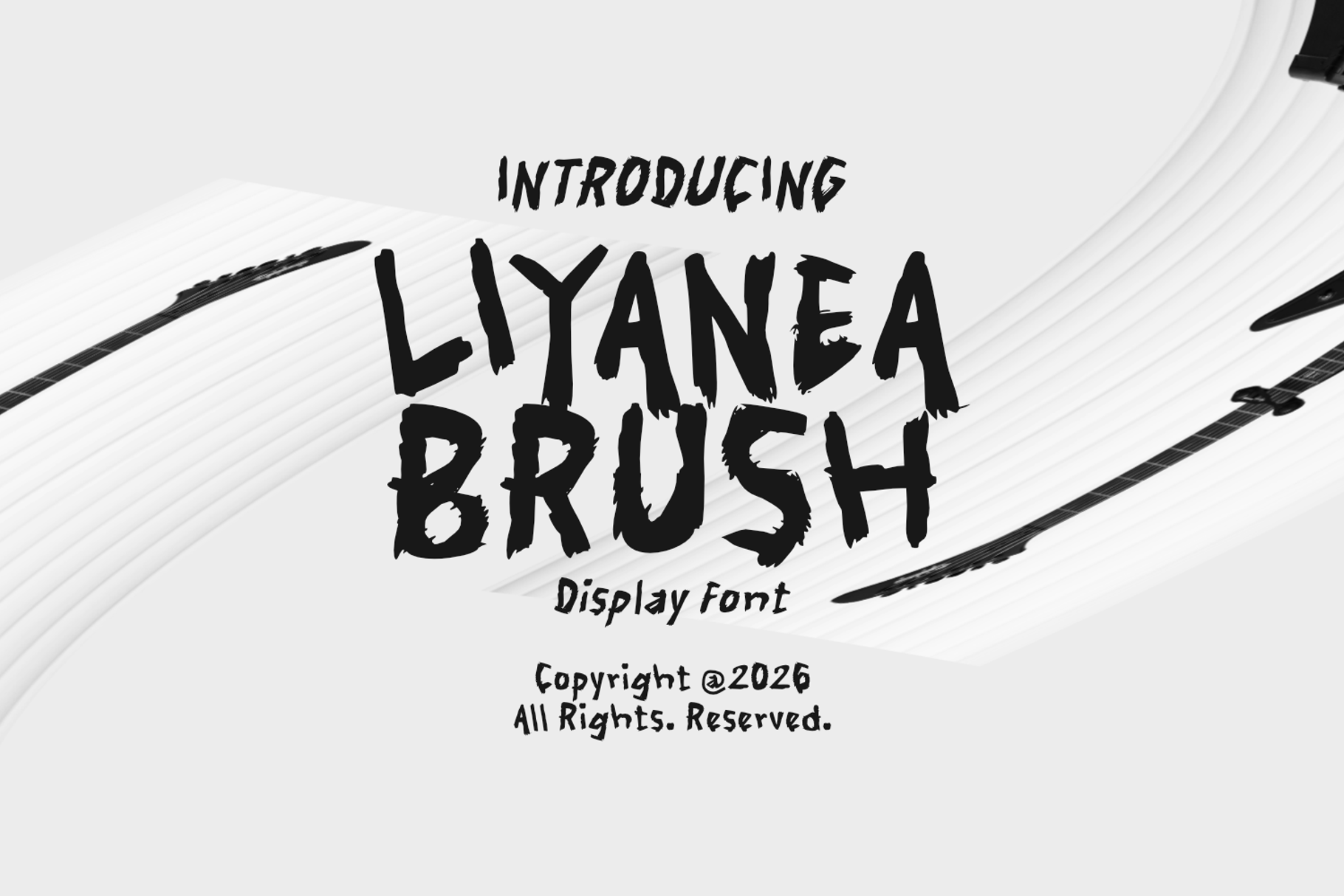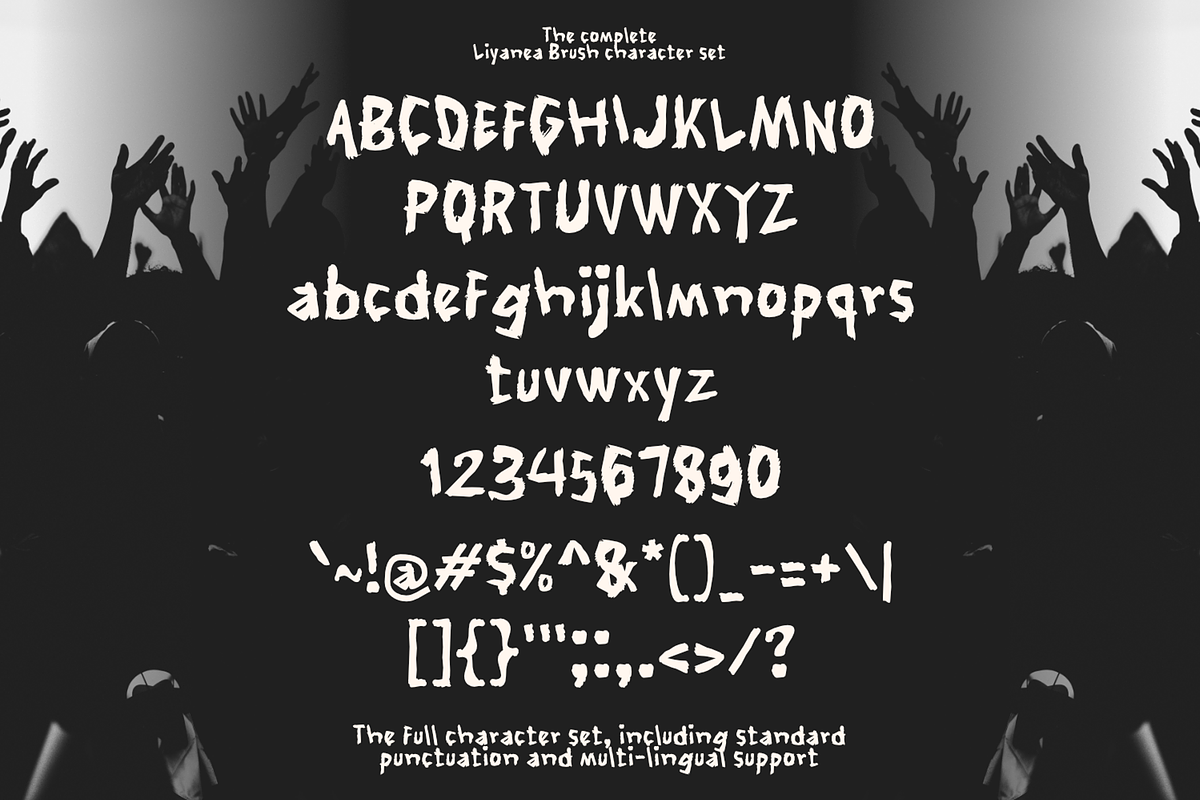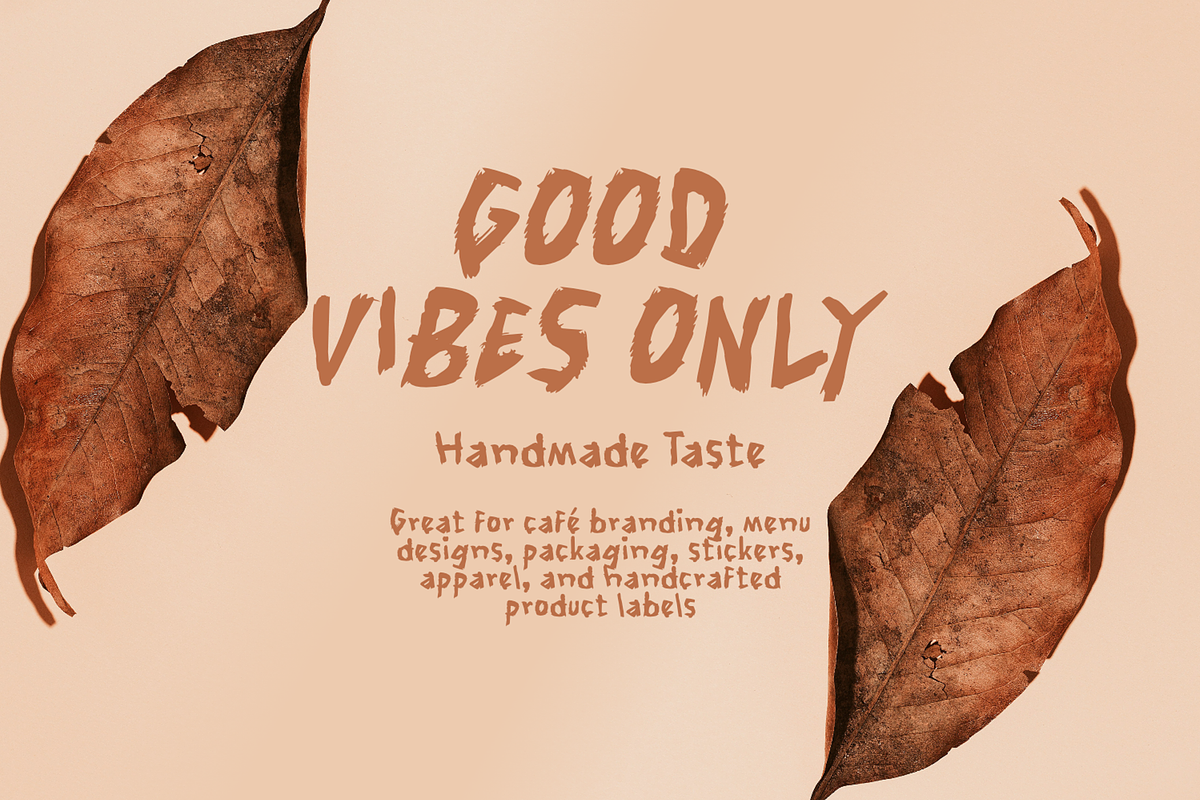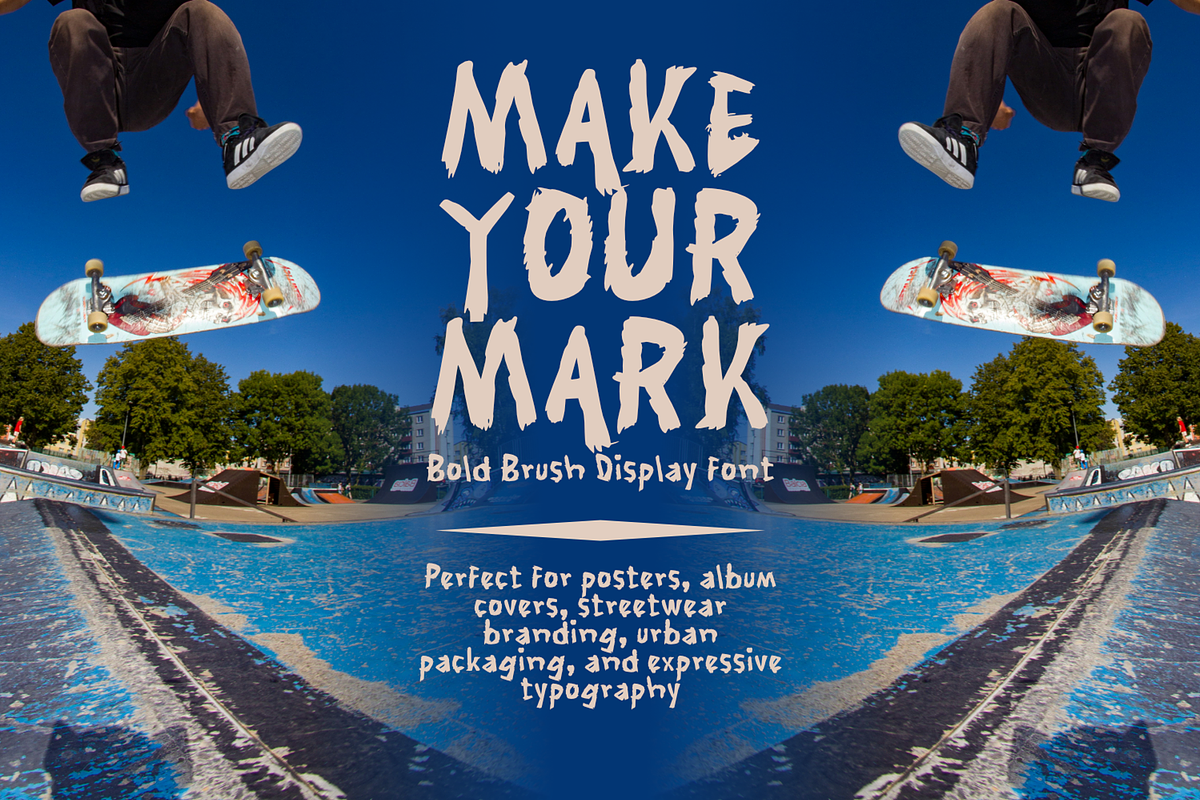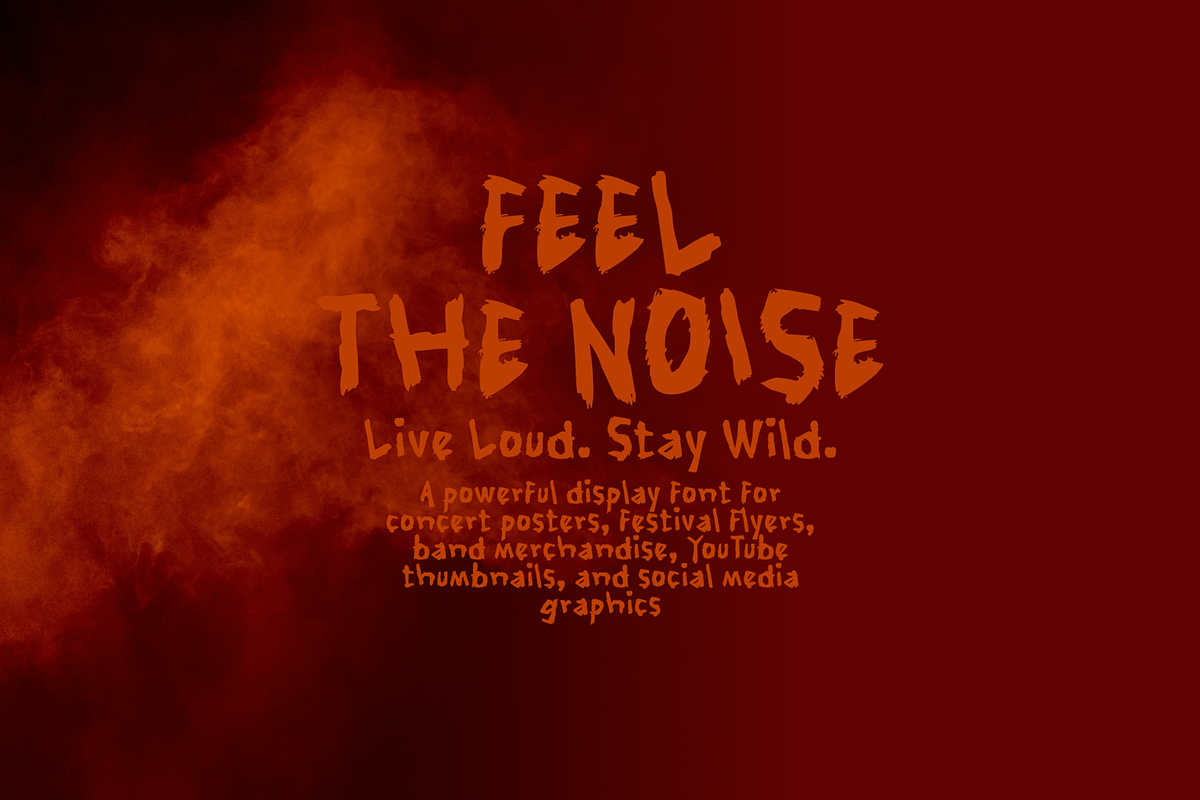
Liyanea Brush Display Font
Liyanea Brush is a bold hand-painted display font that captures the raw energy of real brush strokes. Featuring rough edges, organic textures, and expressive letterforms, this font brings an authentic handcrafted feel to every design. Its powerful character makes it perfect for eye-catching headlines, posters, branding, apparel, album covers, packaging, social media graphics, and creative projects that demand attention.
Whether you're creating urban-inspired artwork, adventurous branding, or bold promotional materials, Liyanea Brush delivers a strong visual impact with its artistic and dynamic style. Add personality, movement, and confidence to your typography with this versatile brush display font.